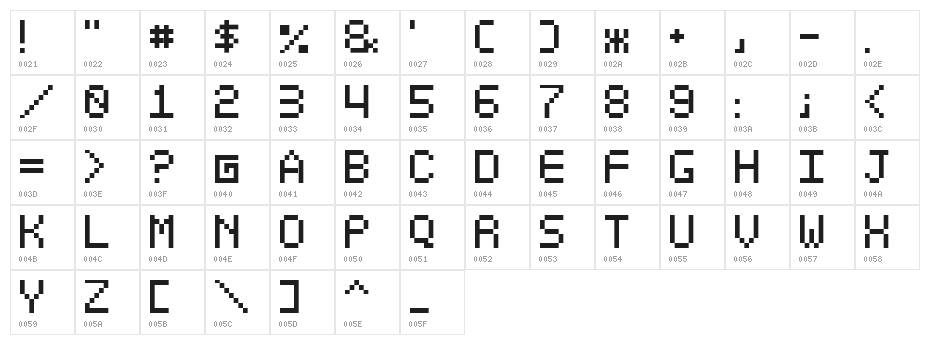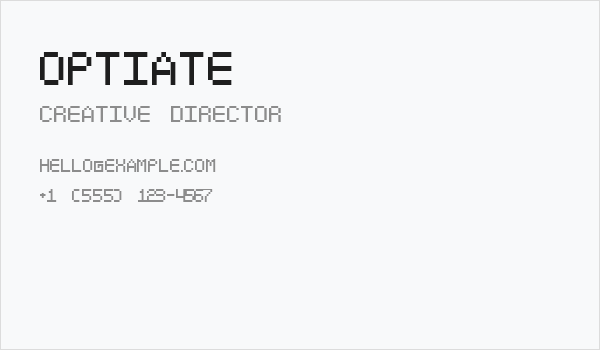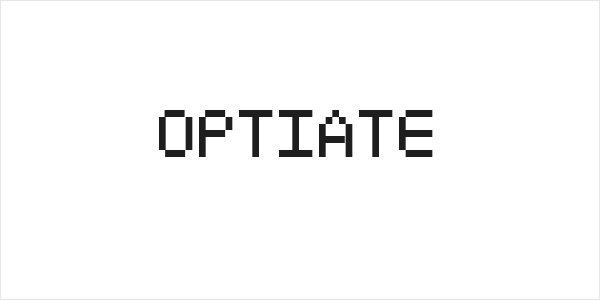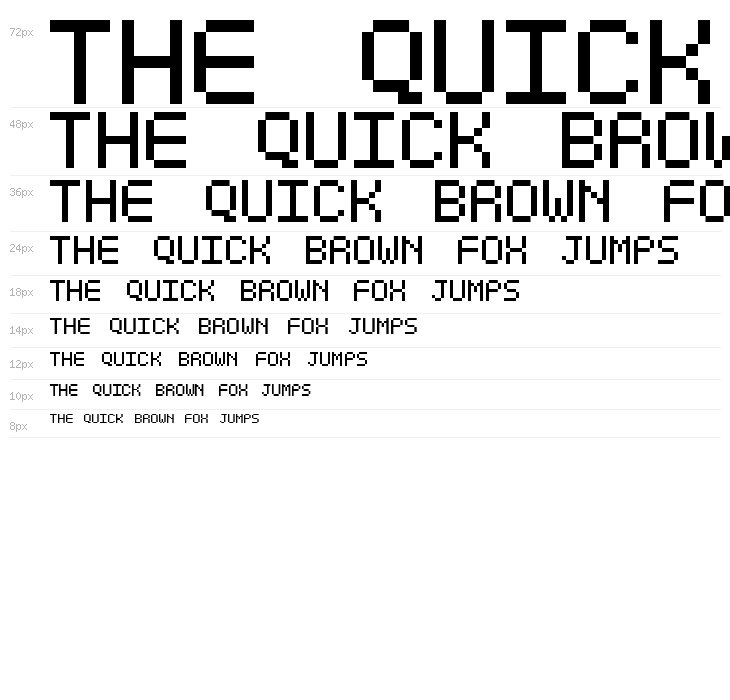
Optiate Font
Optiate Description
This font features a distinct pixelated style, reminiscent of early digital displays and retro video games. Each character is constructed with a blocky, grid-like appearance, giving it a unique, nostalgic feel. The uppercase and lowercase letters maintain a consistent height, contributing to a uniform look. The numerals and special characters follow the same pixelated design, ensuring cohesion across all elements. This font's geometric structure and sharp edges make it stand out, perfect for projects that aim to evoke a sense of digital nostalgia or a retro-futuristic aesthetic.
| Overall Style | Retro, Digital |
| Use Case | Headlines, Logos, Digital Art |
| Proposed Projects | Ideal for video game design, digital art projects, retro-themed posters, and tech-inspired branding. |